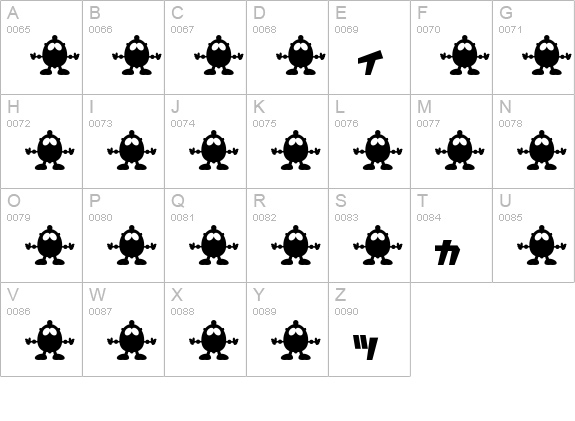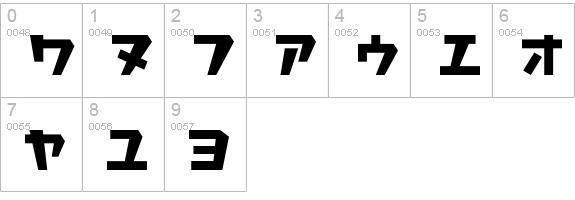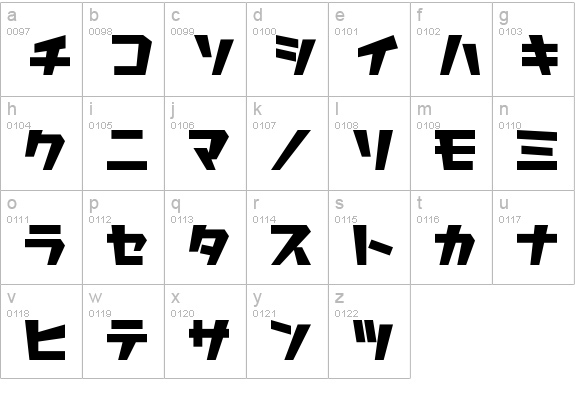
I2Robodaï¿¿ch Font Details
Introducing the mesmerizing I2Robodaï¿¿ch font, a stunning display of creativity and innovation. This unique typeface is sure to captivate and inspire, bringing a touch of modern sophistication to any design project. The I2Robodaï¿¿ch font effortlessly combines sleek lines with bold curves, resulting in a harmonious balance that is both visually striking and effortlessly legible. Its sharp edges and intricate details make it perfect for headlines, logos, posters, and any other design element that requires a touch of elegance. But what sets the I2Robodaï¿¿ch font apart from the rest is its accessibility. This extraordinary font is not only a visual masterpiece, but it is also completely free for anyone to use and enjoy. Yes, you heard it right - this remarkable font is freely available to download at FontsMarket.com. Downloading the I2Robodaï¿¿ch font is not just an opportunity to enhance your design projects, but it is also a chance to embrace the spirit of creativity and individuality. With its wide range of characters and stylistic alternates, this font allows you to truly express yourself and add a unique touch to your creations. Whether you are a professional designer, a creative enthusiast, or simply someone looking to add a touch of elegance to their everyday communications, the I2Robodaï¿¿ch font is the perfect choice. So why wait? Head over to FontsMarket.com and download this extraordinary font for free today. Unleash your creativity and let the I2Robodaï¿¿ch font elevate your designs to new heights.